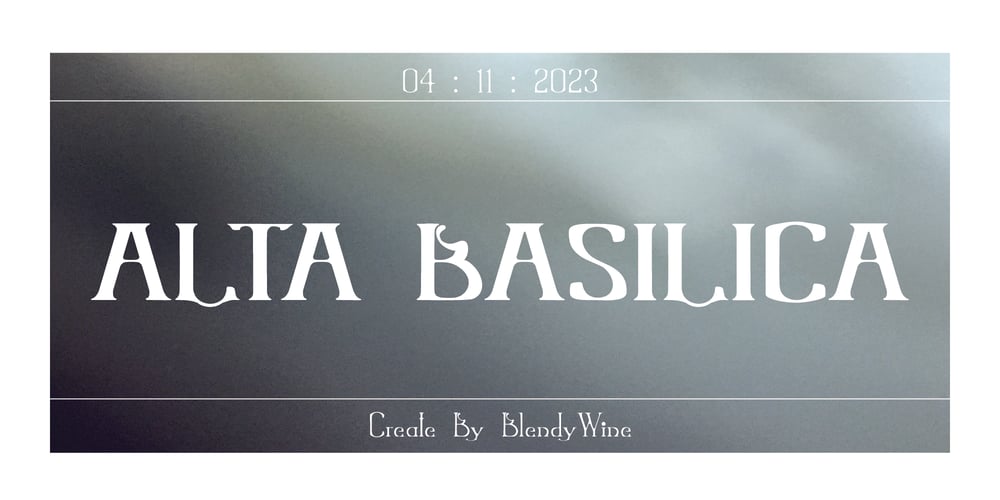
Alta Basilica
Alta Basilica font
Alta Basilica Font Family was designed by Aekkaluk Sukphed and published by Blendy wine. Alta Basilica contains 3 styles and family package options. This font was created to capture the delicacy of ancient art. But it can still be used today very well.